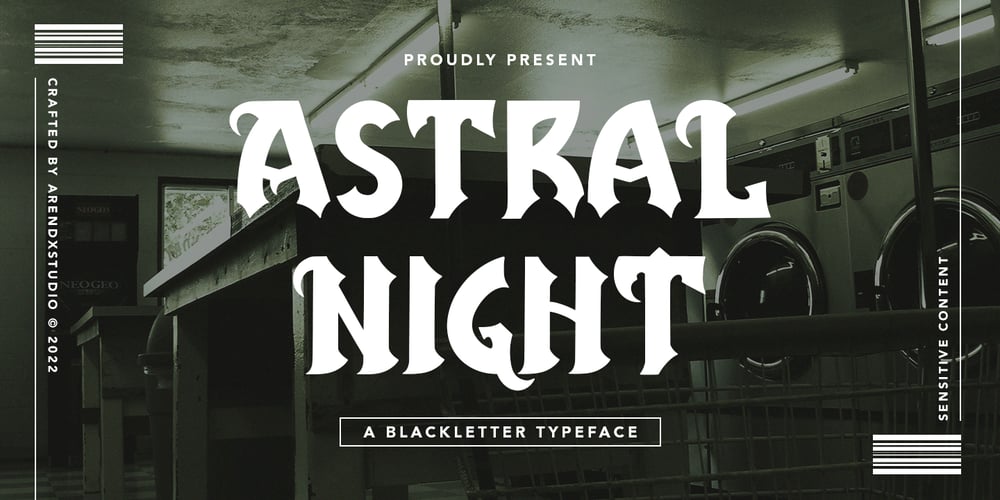
Astral Night Font Family was designed by Asep Rendi and published by Arendxstudio. Astral Night contains 1 styles and family package options. Astral Night – A Blackletter Typeface is a display font that is inspired by gothic and horror style because its shape is very unique and is perfect for any project that you will use with this theme.Astral Night with opentype features such stylistic alternates, stylistic sets & ligatures good for logotype, poster, badge, book cover, tshirt design, packaging and any more.Features :1.Uppercase & Lowercase 2.Multilingual support 3.Number 4.Symbol 5.Punctuation. 6.Extra Dingbat 7.Support in Mac and Windows OS -Support in design application (photoshop, illustrator, and more)